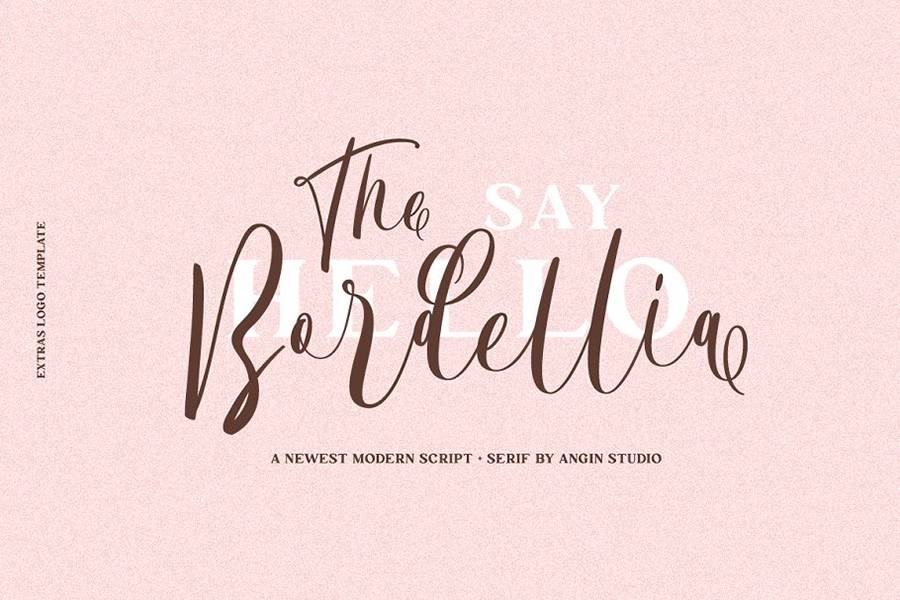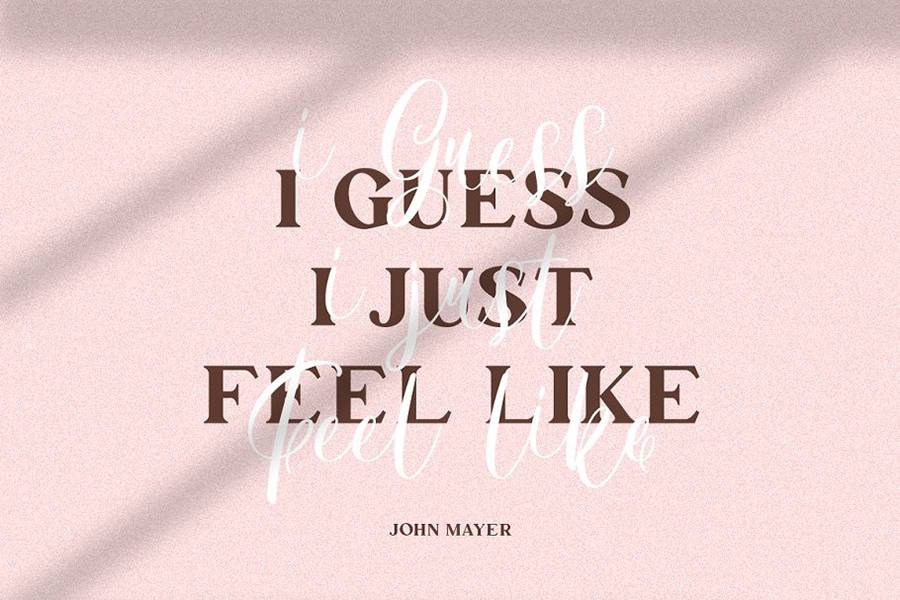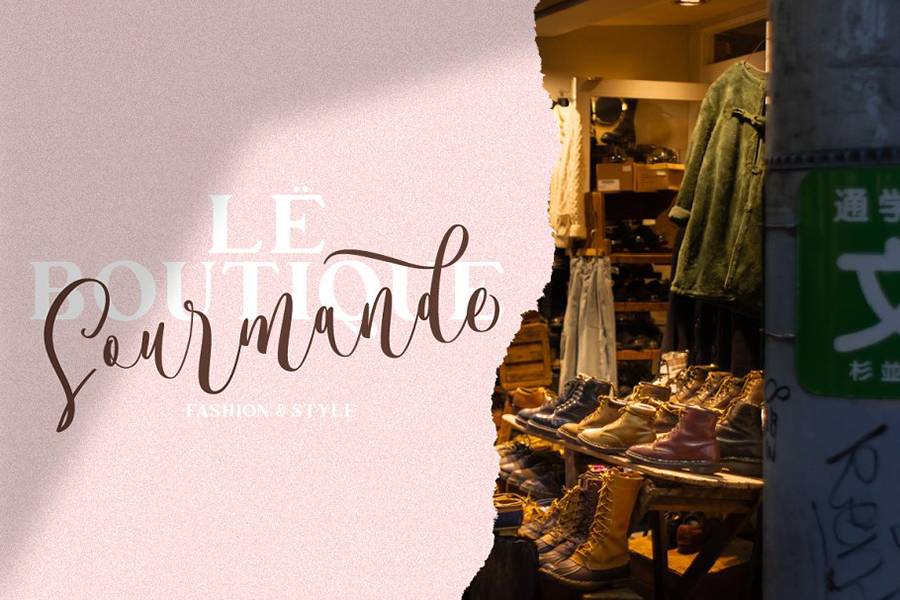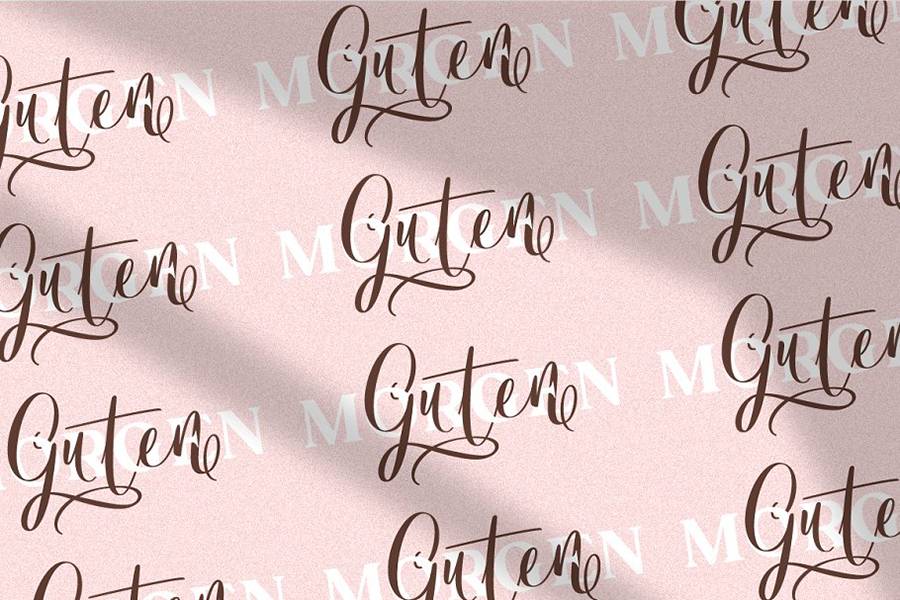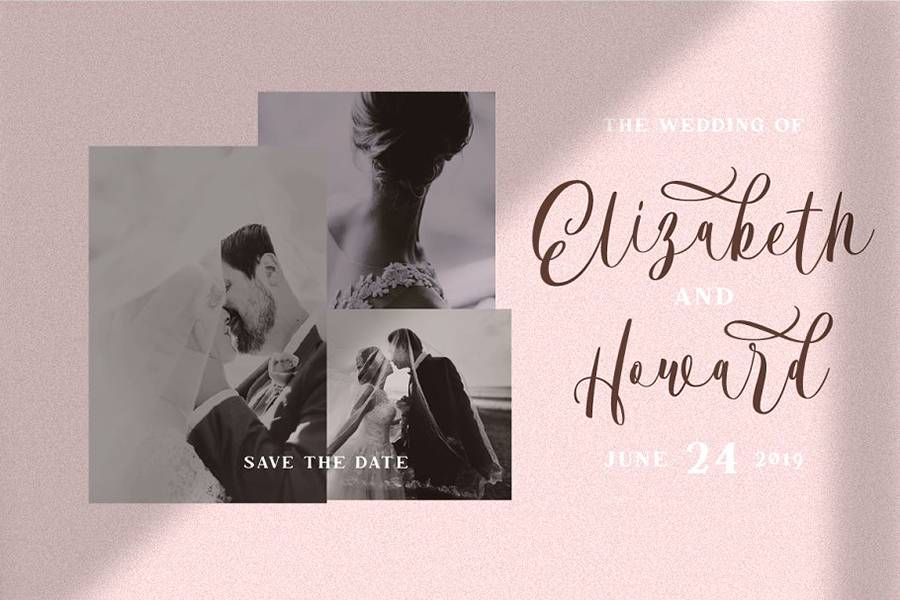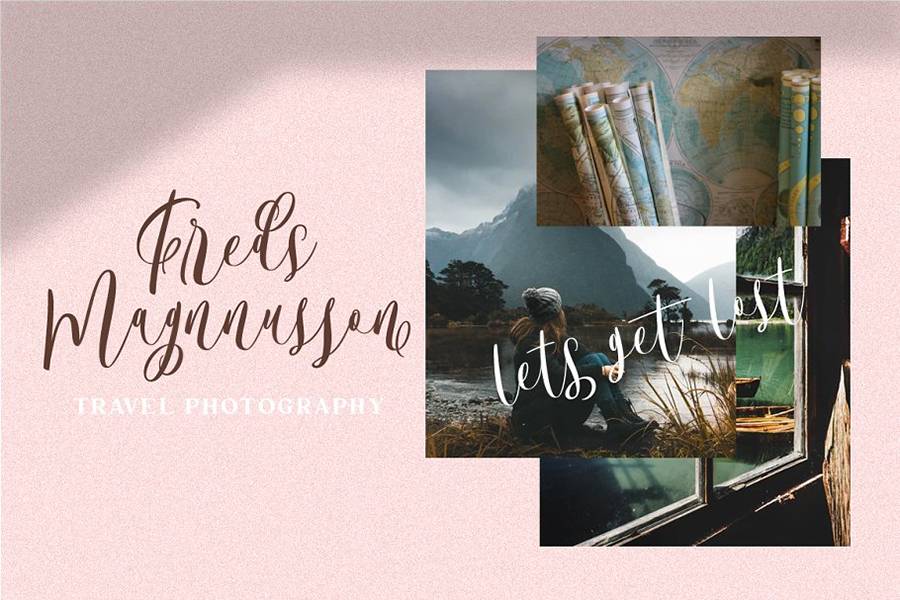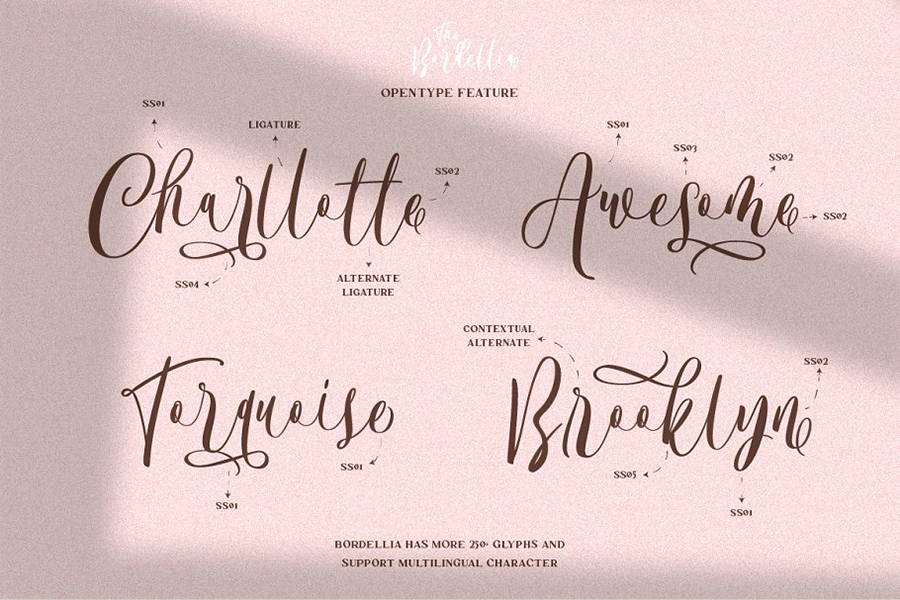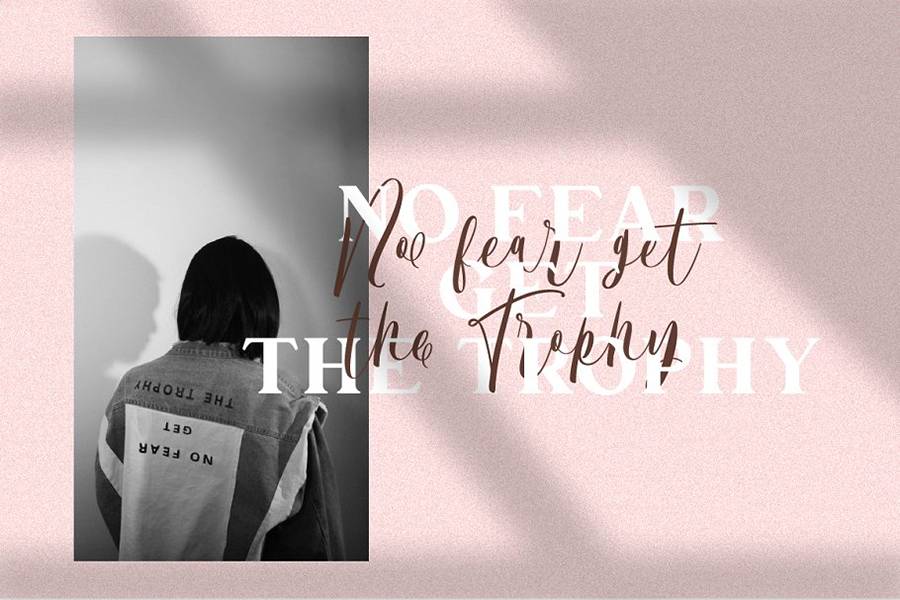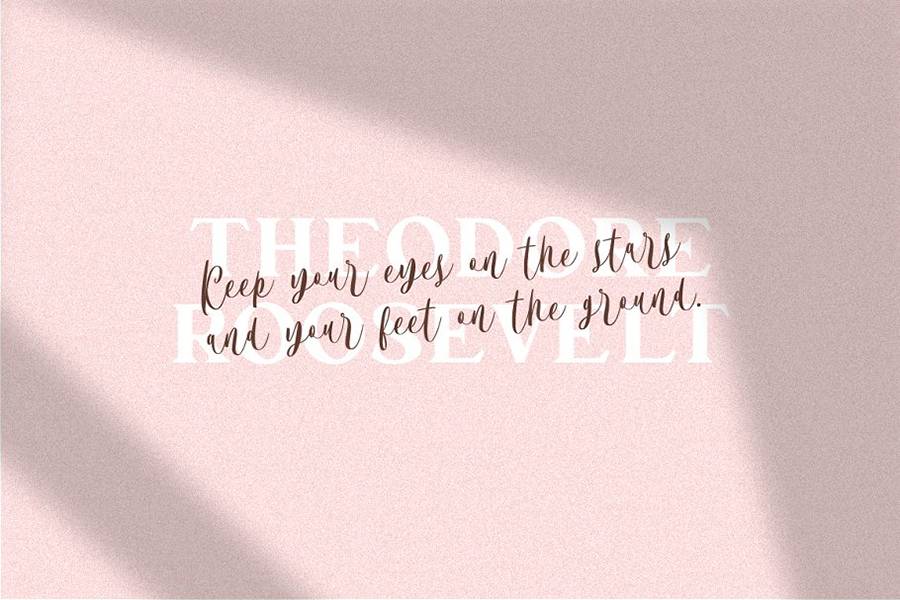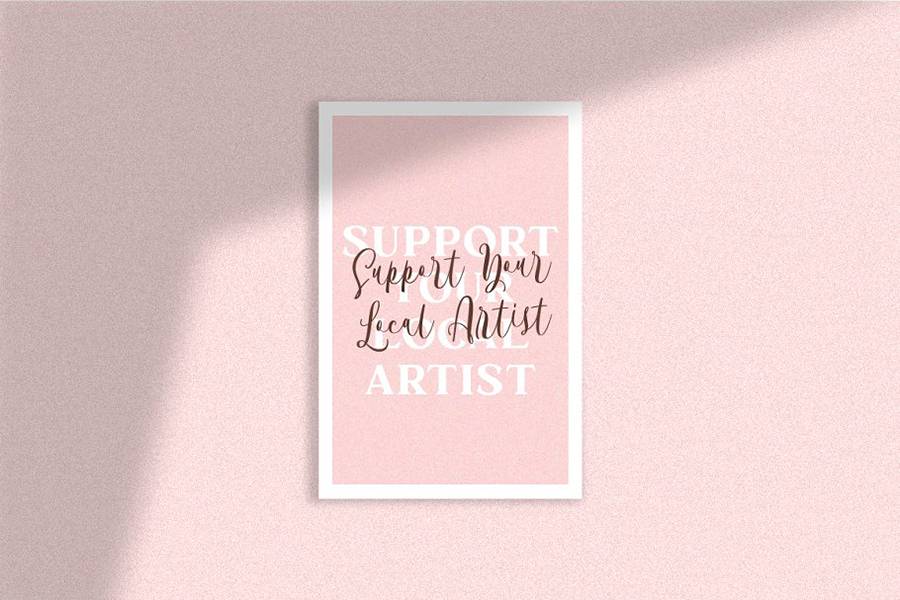
Bordellia Script Lettering Font is an elegant and flowing script font featuring slender strokes with graceful curves and distinctive flourishes, giving it a sophisticated and artistic personality. Its high contrast and delicate forms make it ideal for luxury branding, wedding invitations, and stylish logos where a refined, romantic, and hand-crafted feel is desired. This font shines most in upscale and decorative contexts, adding a touch of bespoke charm to any creative project.
Bordellia Script Lettering Font
About Bordellia Script Lettering Font
| Font family | Bordellia Script Lettering Font |
| Release date | 2019-08-07 |
| Designer | Angin Studio |